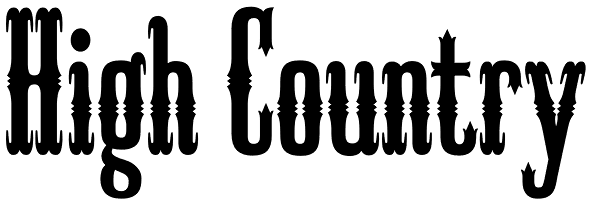
High Country
Although this font resembles the FontMesa High noon font a closer look reveals much more rounded serifs to this Antique Tuscan font.
High Country Font